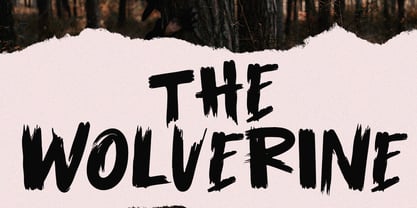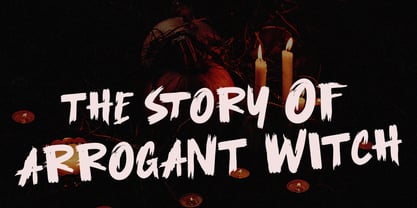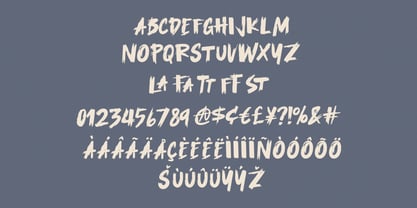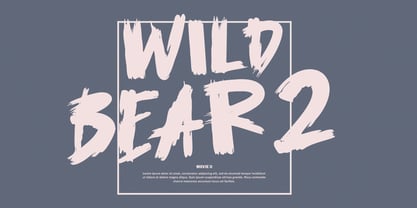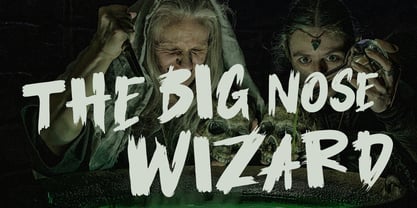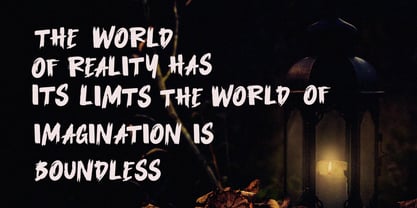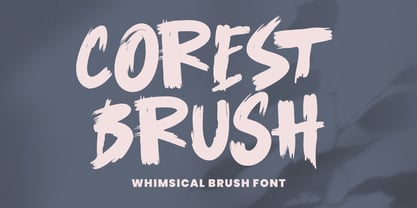
MC Corest Brush
by Maulana Creative
The MC Corest Brush Font Family was designed by Gilang Maulana and published by Maulana Creative. MC Corest Brush contains 1 styles. More about this family
Unleash a sense of adventure and mystery with Corest Brush, a handcrafted display font designed for impact. Featuring authentic dry-brush textures and a whimsical yet gritty aesthetic, this font captures the raw essence of natural brushwork. Its bold, all-caps characters are perfect for cinematic, horror themed branding, and dynamic social media graphics. Whether you’re designing a spooky cover or a wild outdoor advertisement, Corest Brush provides a unique, handmade feel that demands attention.